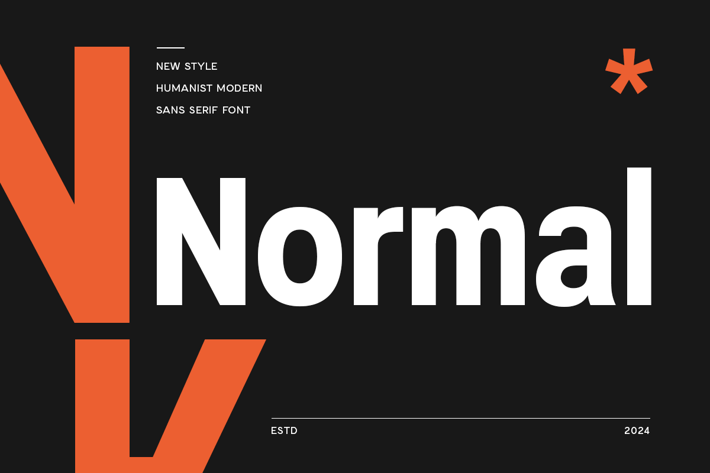
Normal - Humanist Modern Sans Serif Font
Normal is a Humanist Modern Sans Serif Font that's well-balanced modern font with a minimalist, unique, and premium sans serif, font that you can combine to get any variations and unique shapes easily just in seconds with choose alternates of them. It is a sans serif font with minimalist style that perfect for branding projects, logo, poster designs, social media posts, advertisements, product packaging, product designs, label, photography, watermark, invitation, stationery, and any projects, it makes with a high level of legibility.